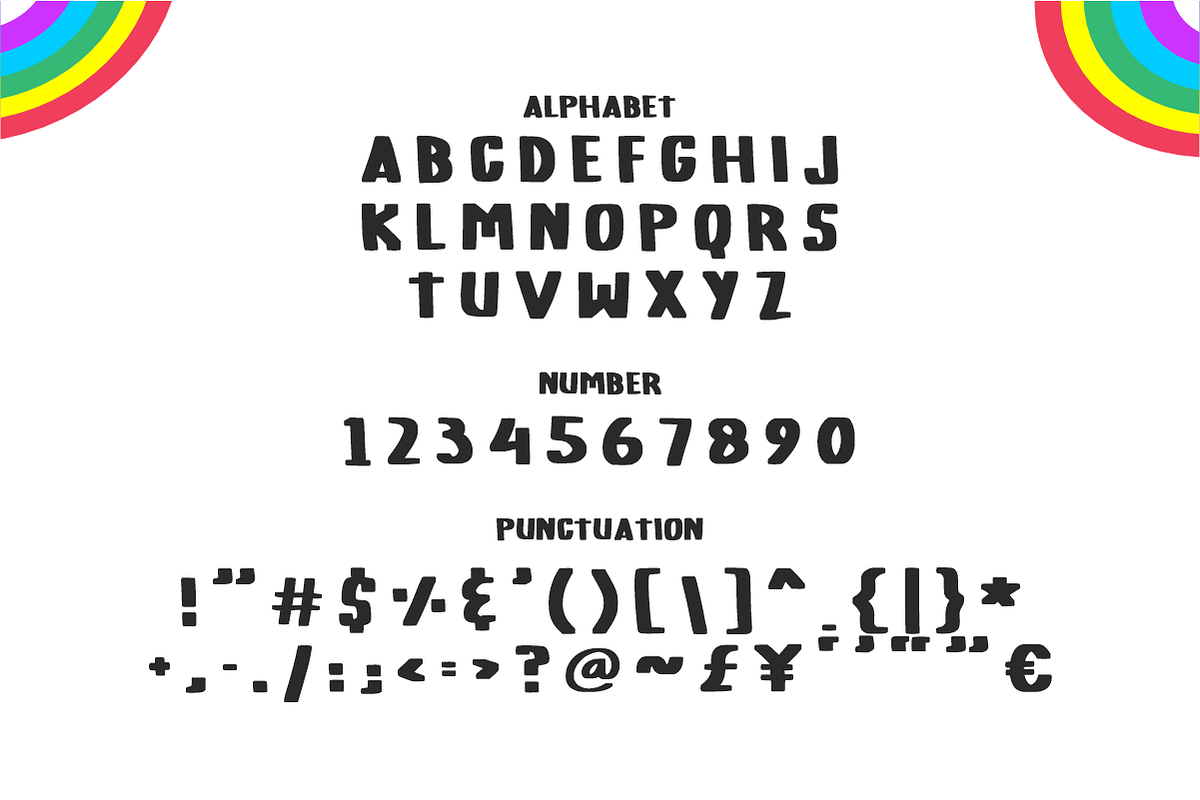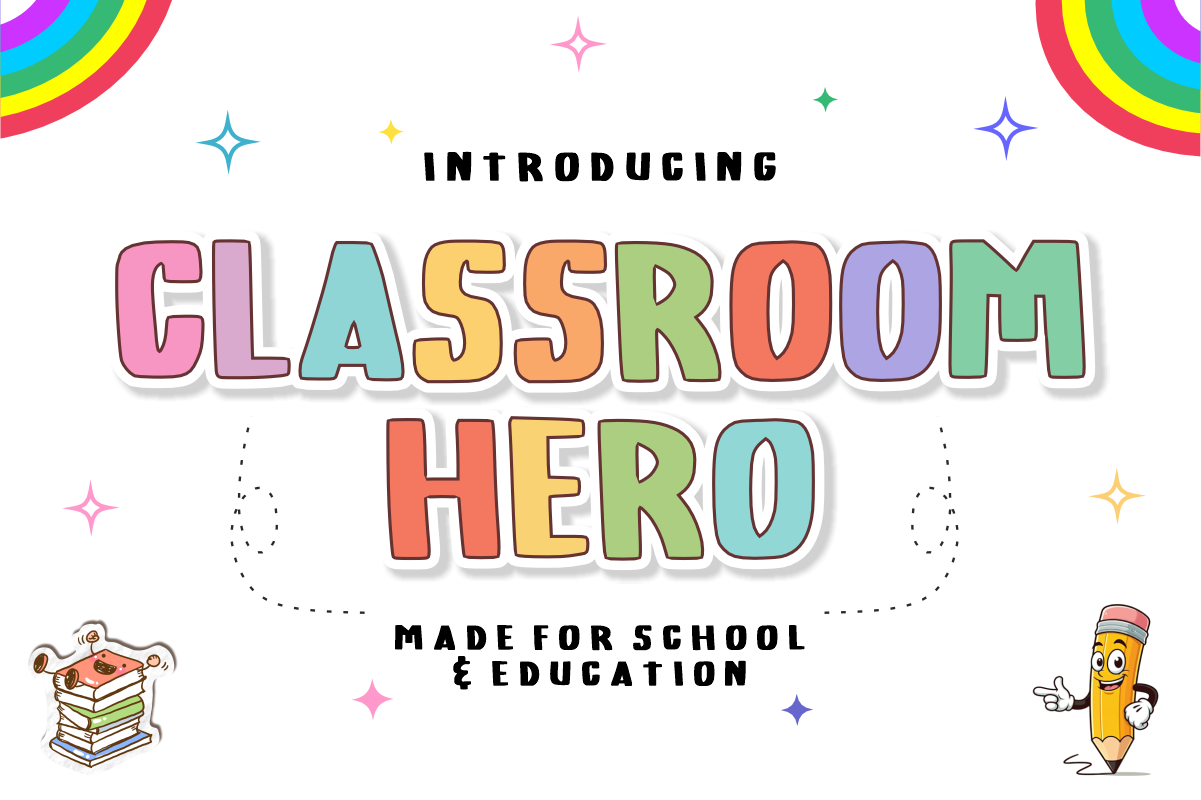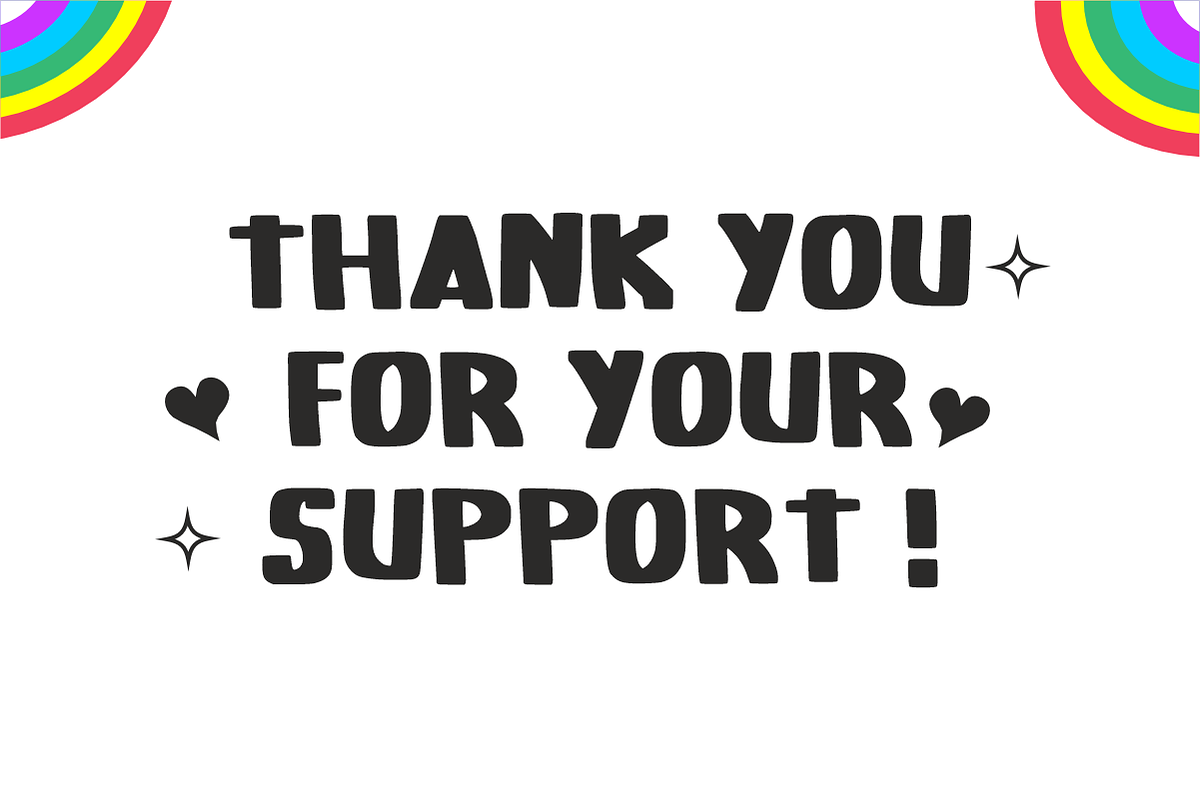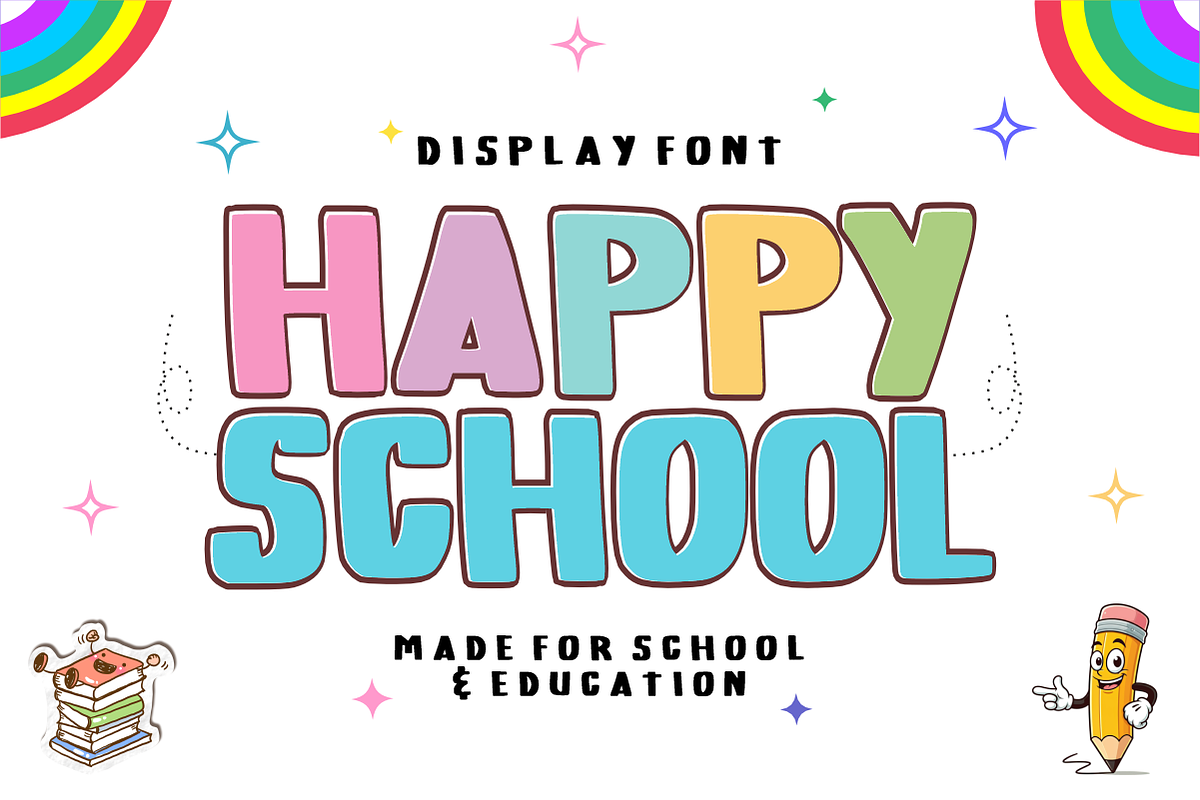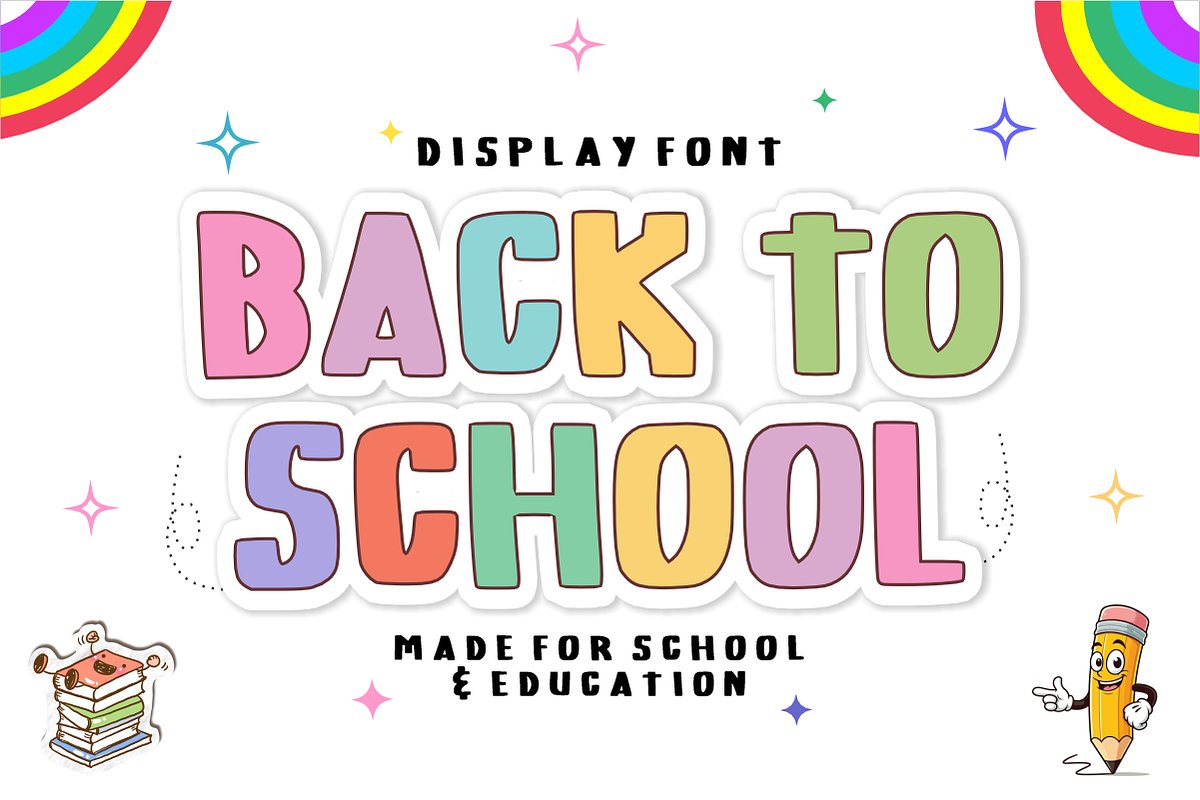
Classroom Hero -Playful Display Font
Classroom Hero - Bold Playful Display Font
Step up your creative game with Classroom Hero! This bold, cheerful display font is perfectly tailored for educational themes, children's publishing, and youthful branding. Featuring clean, solid letterforms with a friendly and inviting aesthetic, it is engineered to deliver high visual impact and instant engagement.
Whether you are building an energetic brand identity, developing modern product packaging, or creating eye-catching social media graphics, Classroom Hero stands out seamlessly. It’s highly versatile, easy to read, and fully optimized for premium print and digital layouts.
All-Caps Character Set (Bold, clean, and playful uppercase letters)
Numbers & Basic Punctuation (Essential, simple symbols included)
Educational Publishing & Children's Book Covers 📚
Kids' Product Packaging & Toy Branding 🧸
Youth Marketing Campaigns & Creative Logos 🎨
Social Media Content Creation & Ad Graphics 📱
School Merchandising & Vibrant Apparel Design 👕